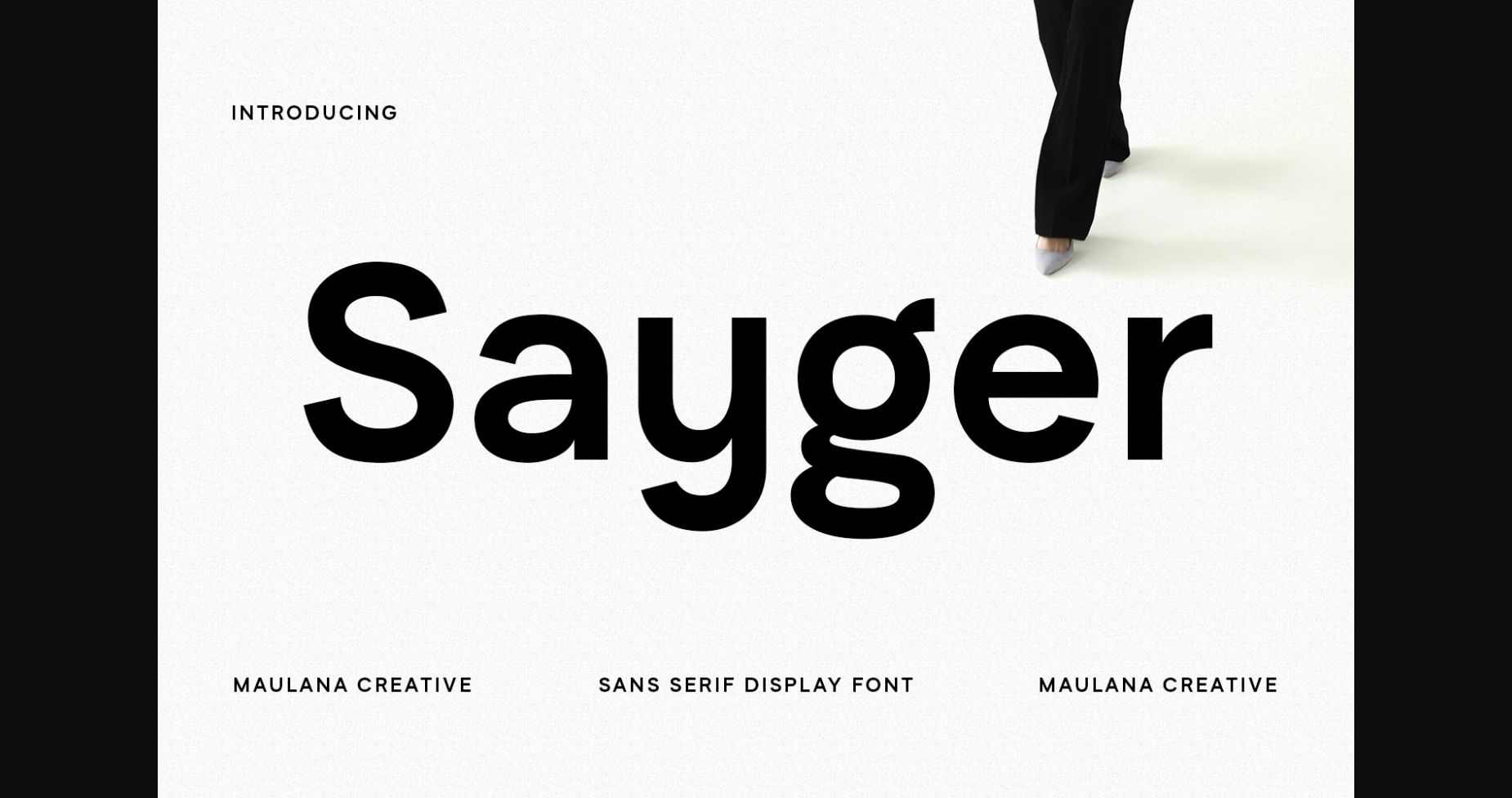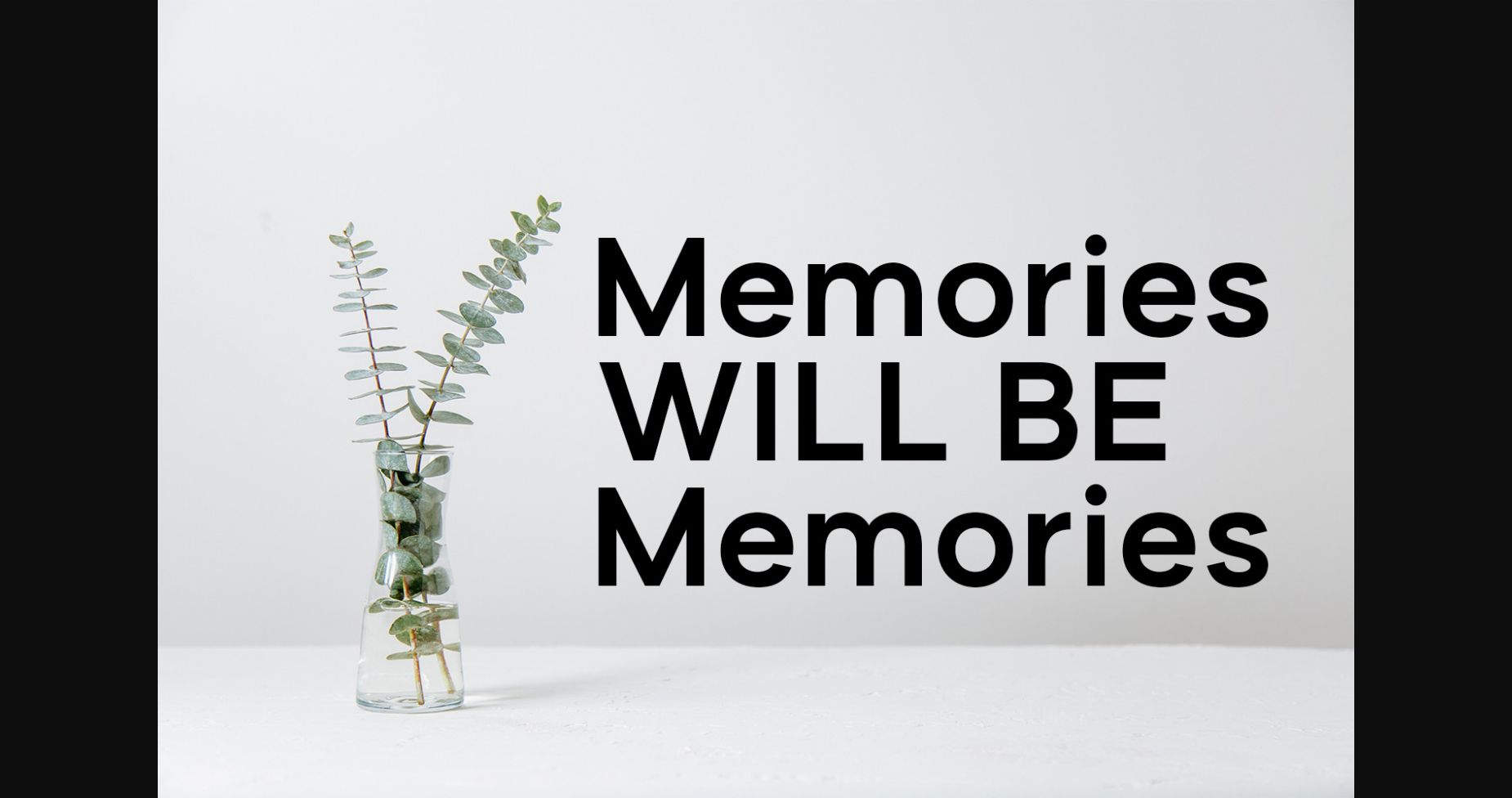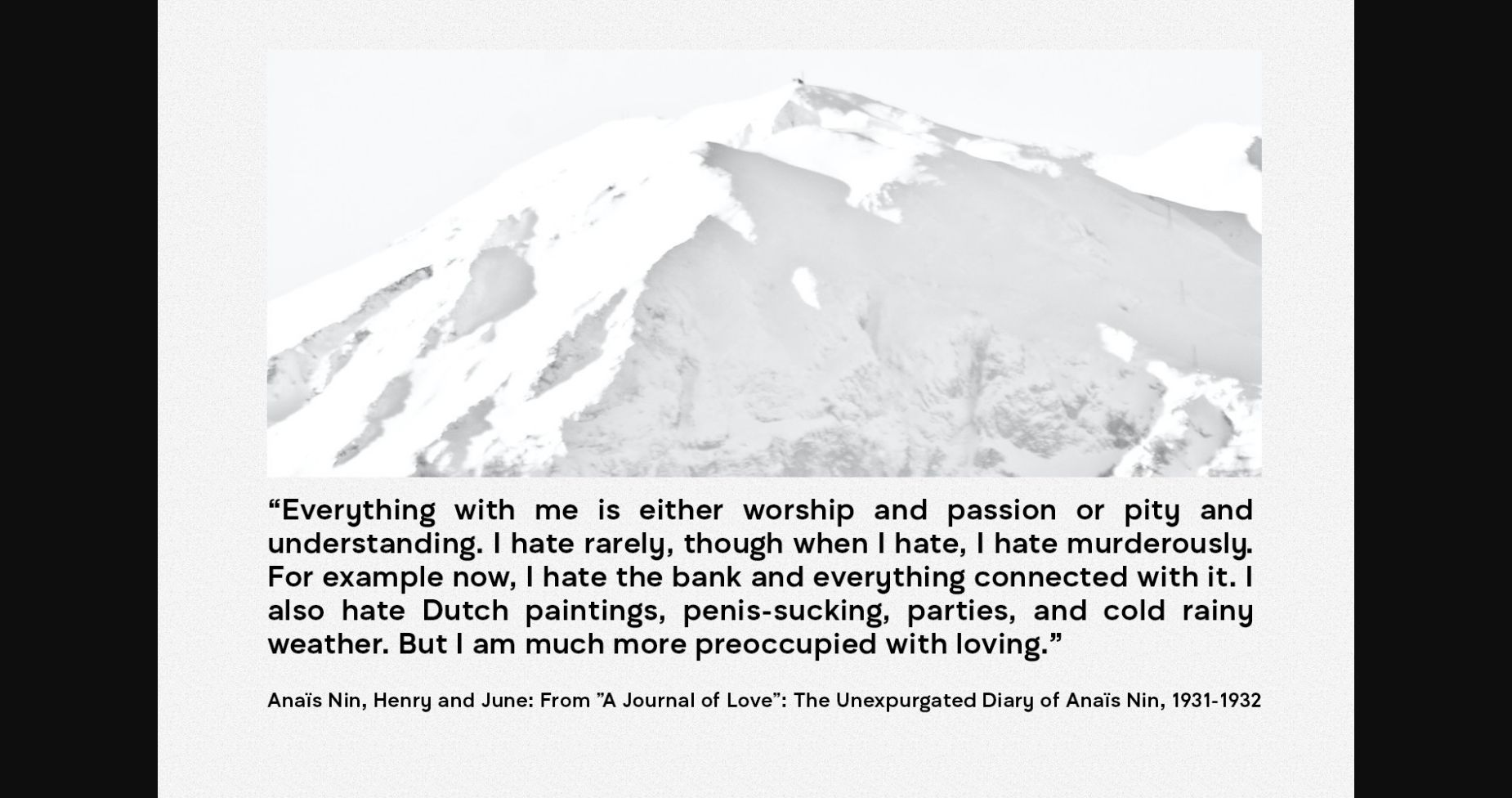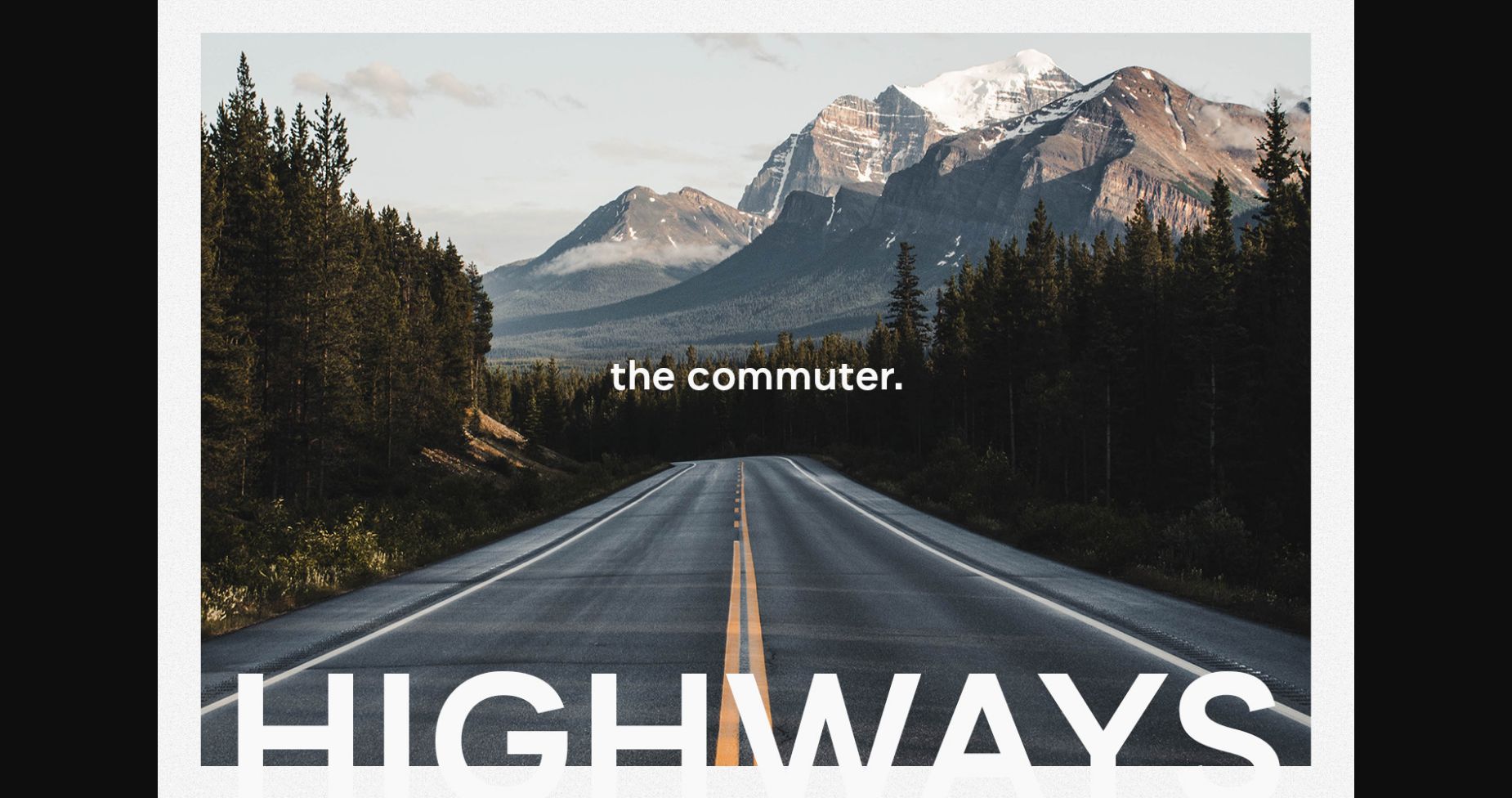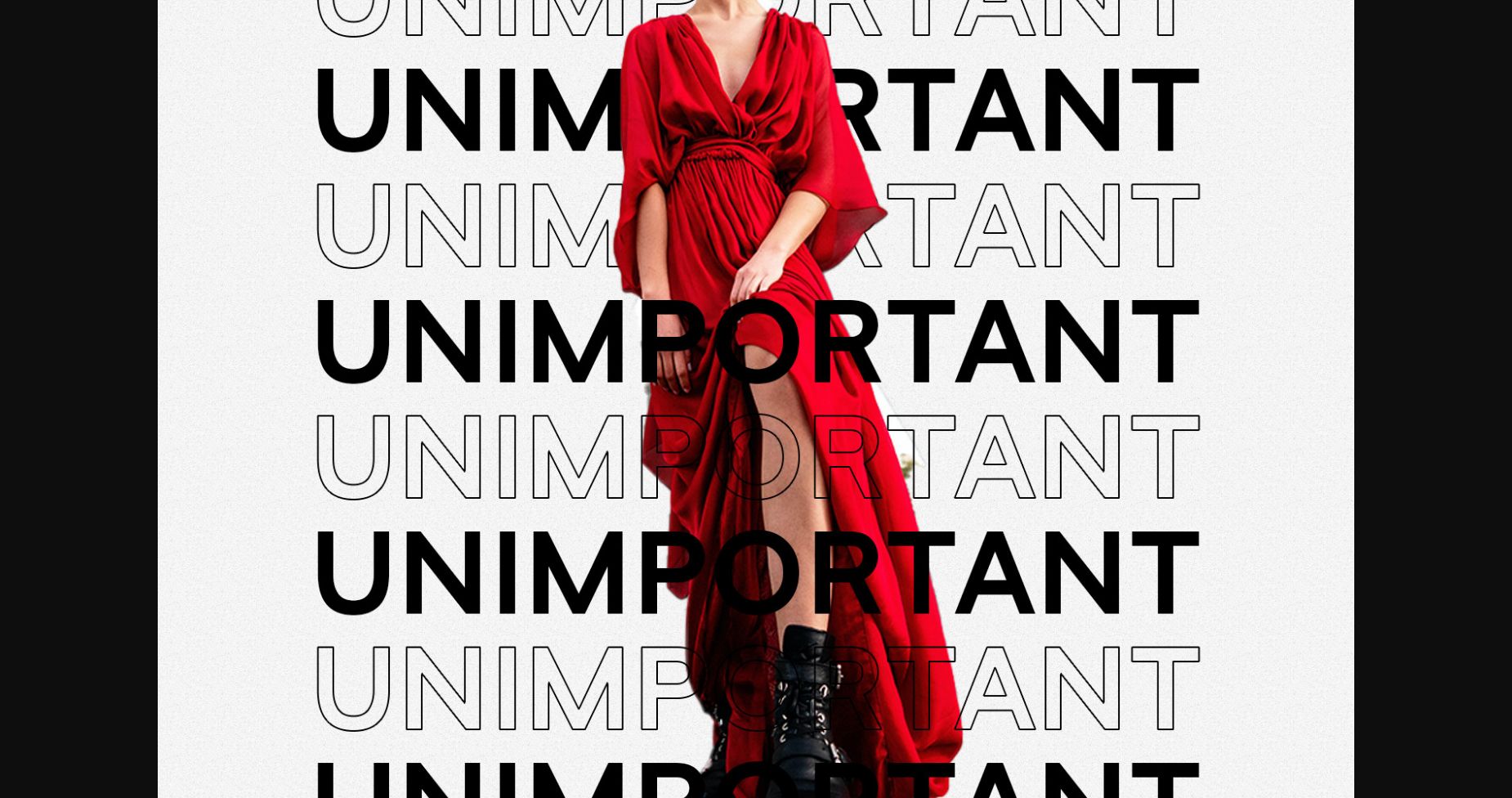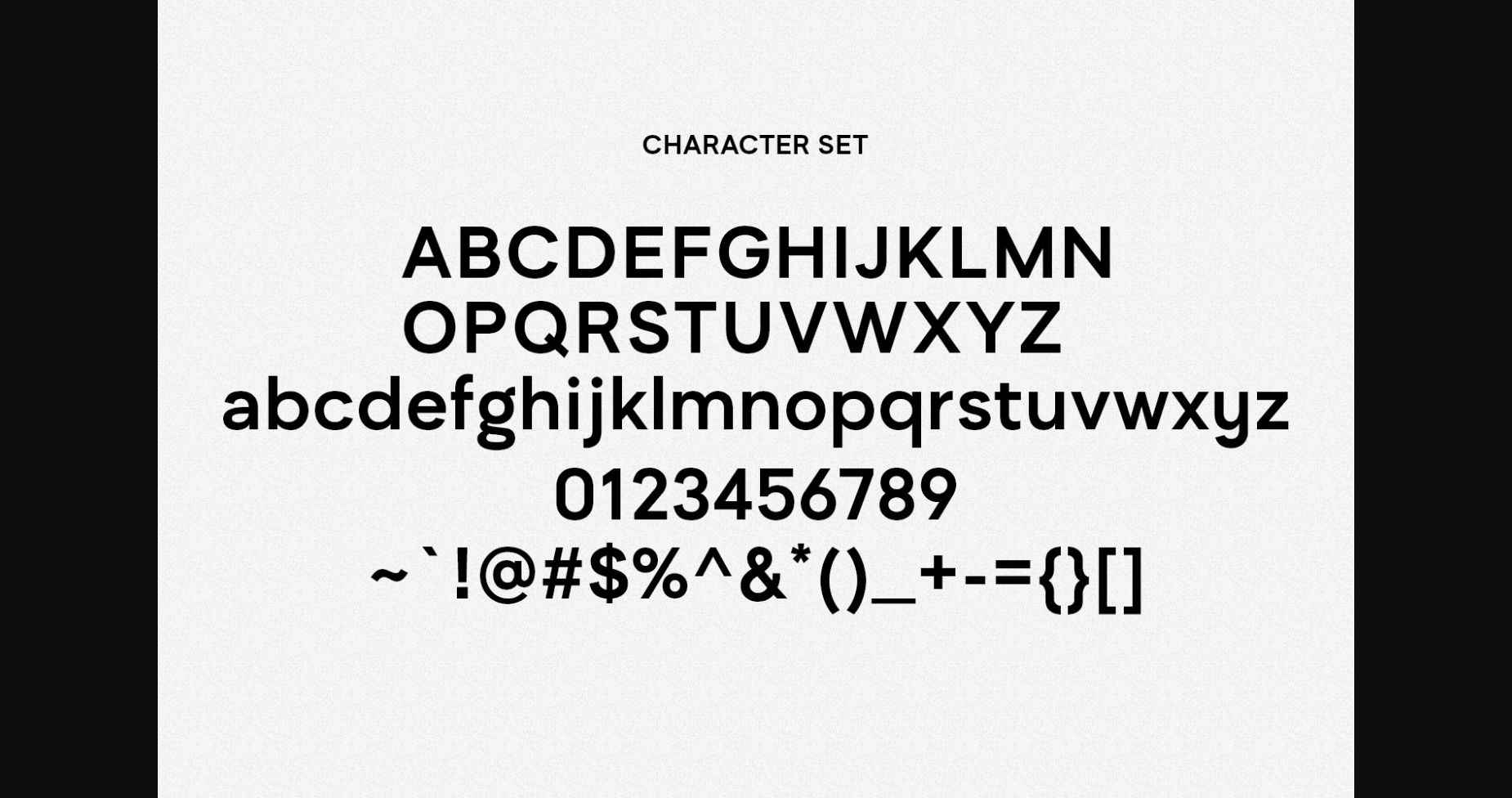
About Sayger Font
Sayger is a sleek and modern sans-serif font that exudes simplicity and sophistication. With its clean and minimalist design, it is perfect for conveying a sense of modernity and elegance in branding and editorial projects. The balanced letterforms and open spacing give it a sense of clarity and readability, making it a versatile font for a wide range of applications.